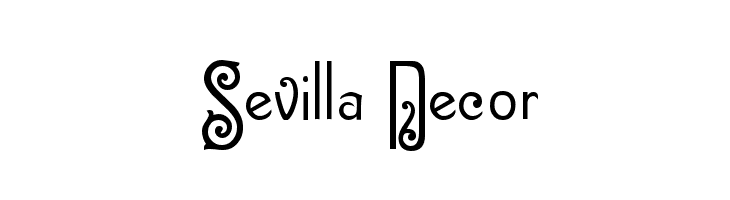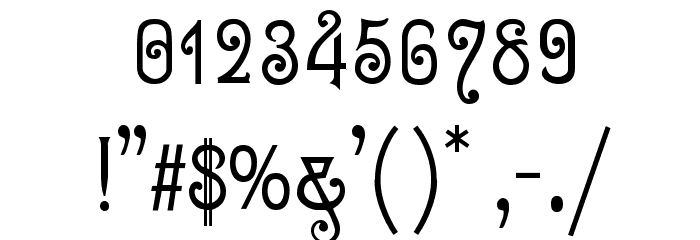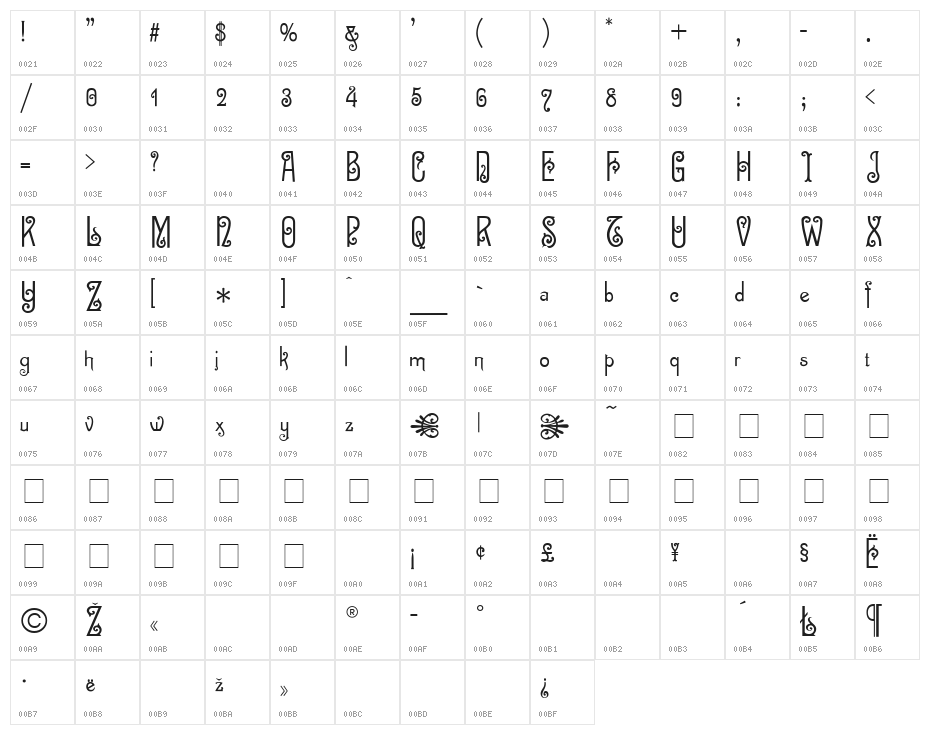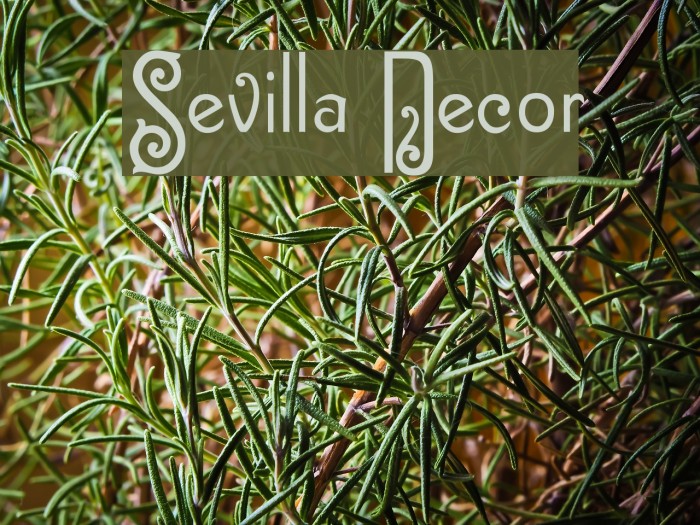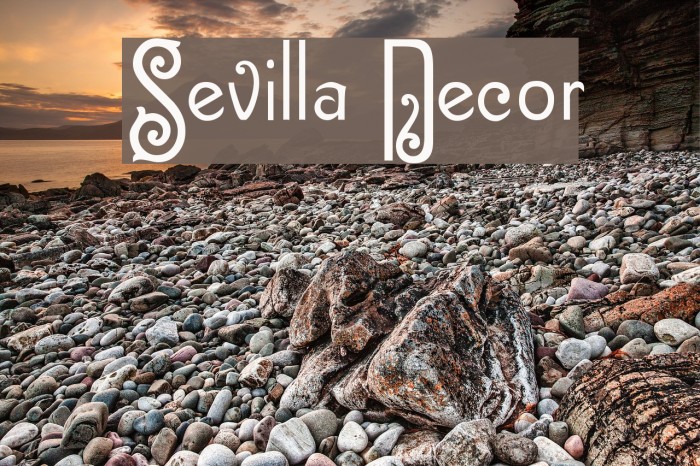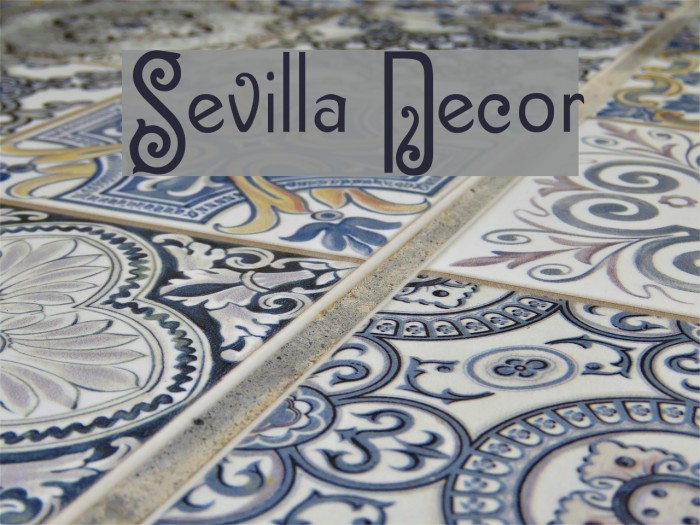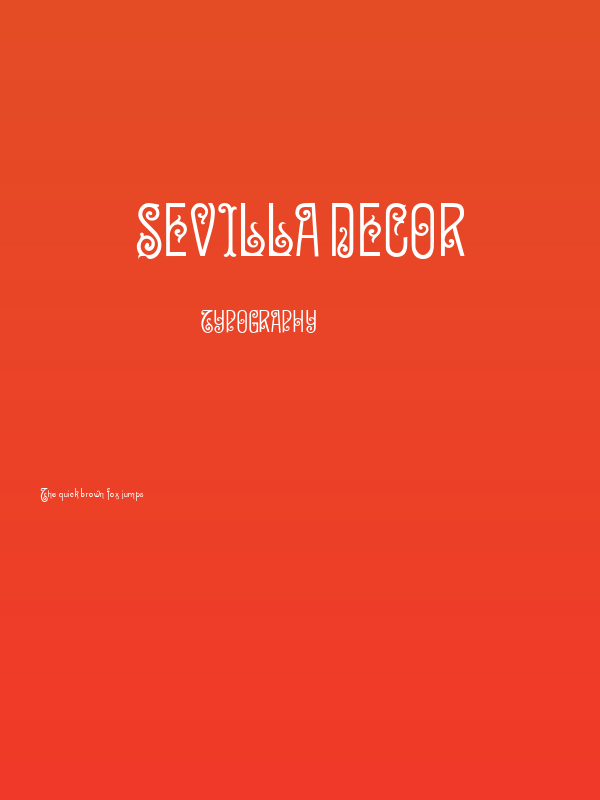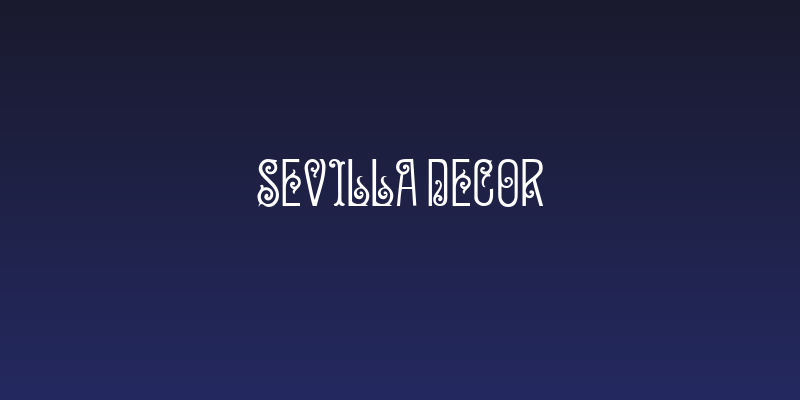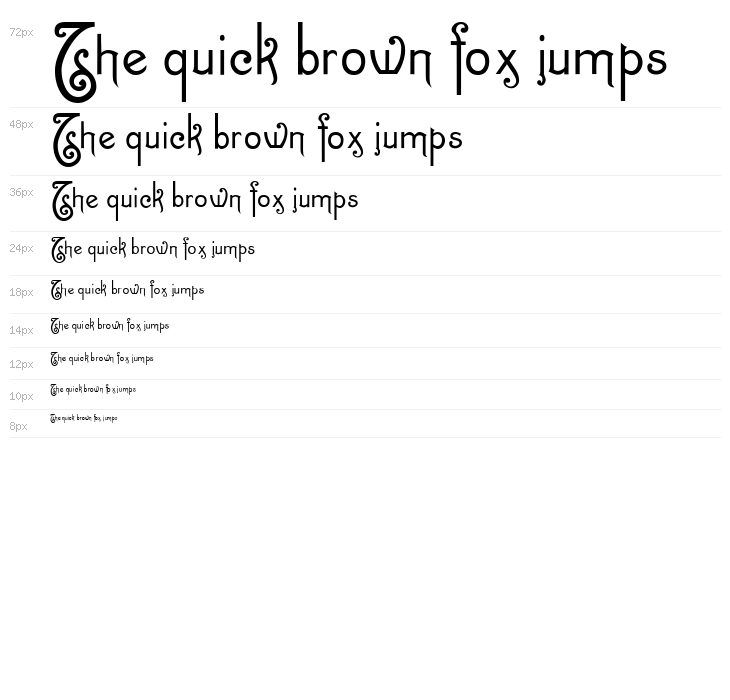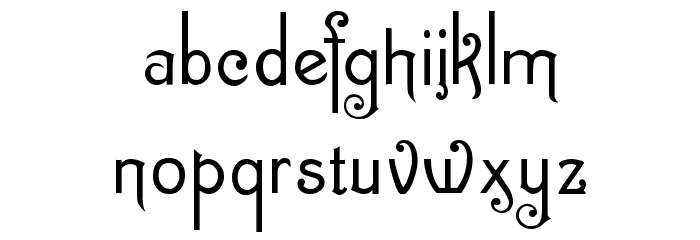
Sevilla Decor Font
Sevilla Decor Description
This font features an ornate and decorative style, characterized by intricate swirls and embellishments on many of the letters. The uppercase letters are particularly elaborate, with unique flourishes that give a sense of elegance and sophistication. The lowercase letters maintain a more subdued yet still decorative appearance, providing a nice balance. The numerals and special characters also carry the decorative theme, making them suitable for artistic and creative projects. This font is ideal for capturing attention and adding a touch of flair to any design.
| Proposed Projects | Ideal for invitations, posters, branding, and any project requiring a touch of elegance and creativity. |